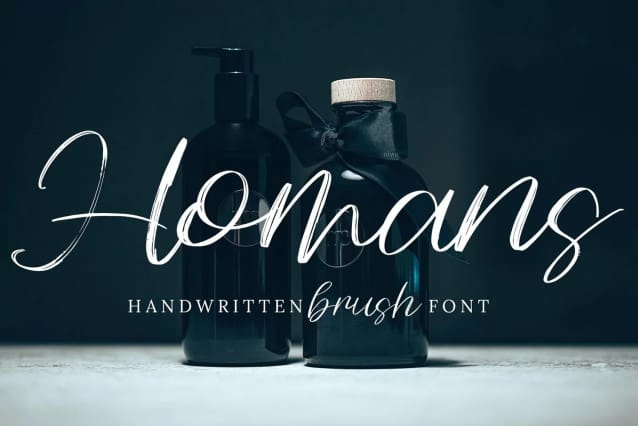
Homans Brush Font
Homans Brush Font is mazing hand lettering look attractive and natural! Script font carefully created with a touch of elegance. Whether you’re looking for fonts for Instagram or calligraphy scripts for DIY projects, this font will turn any creative idea into a true piece of art!